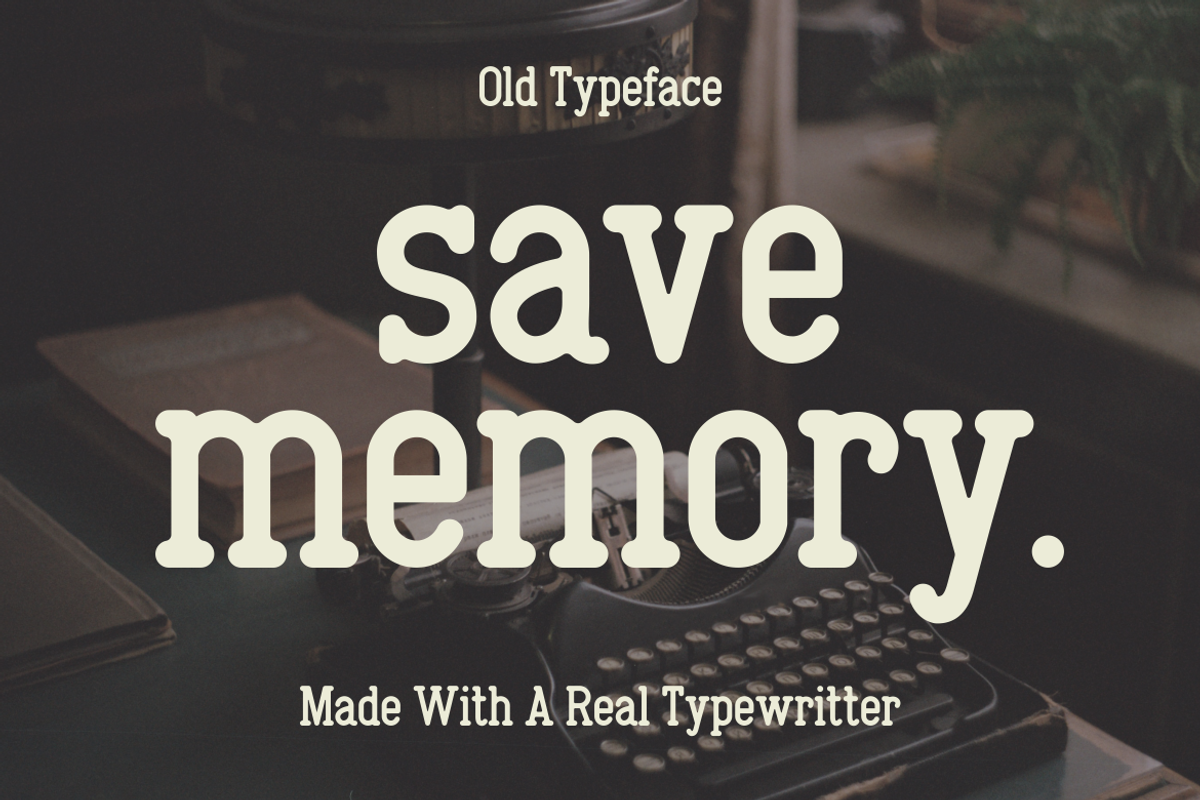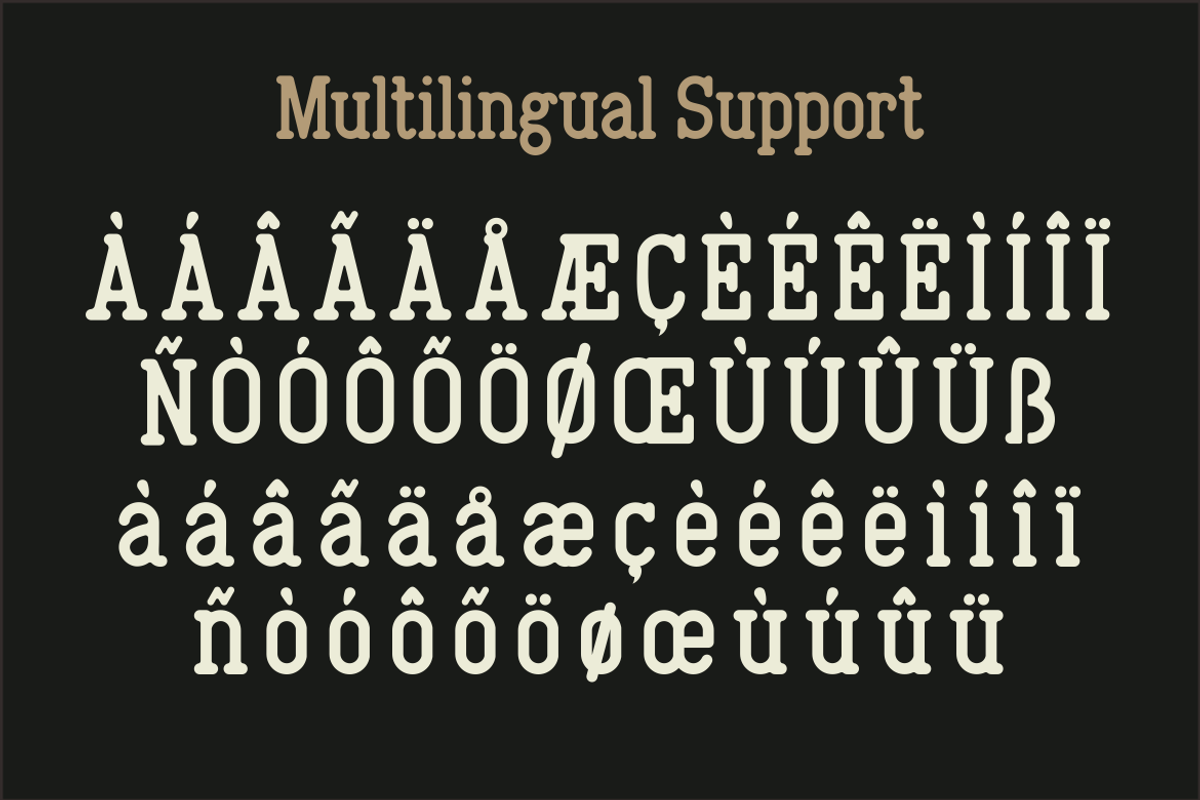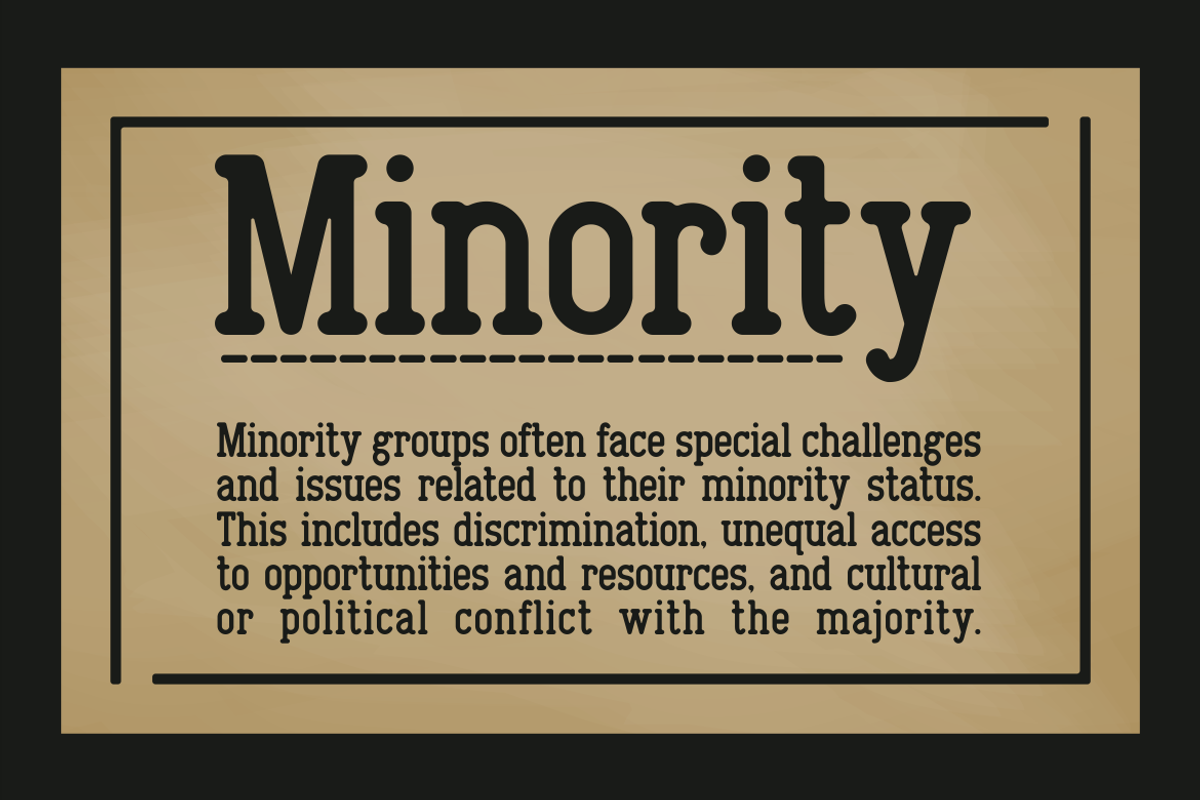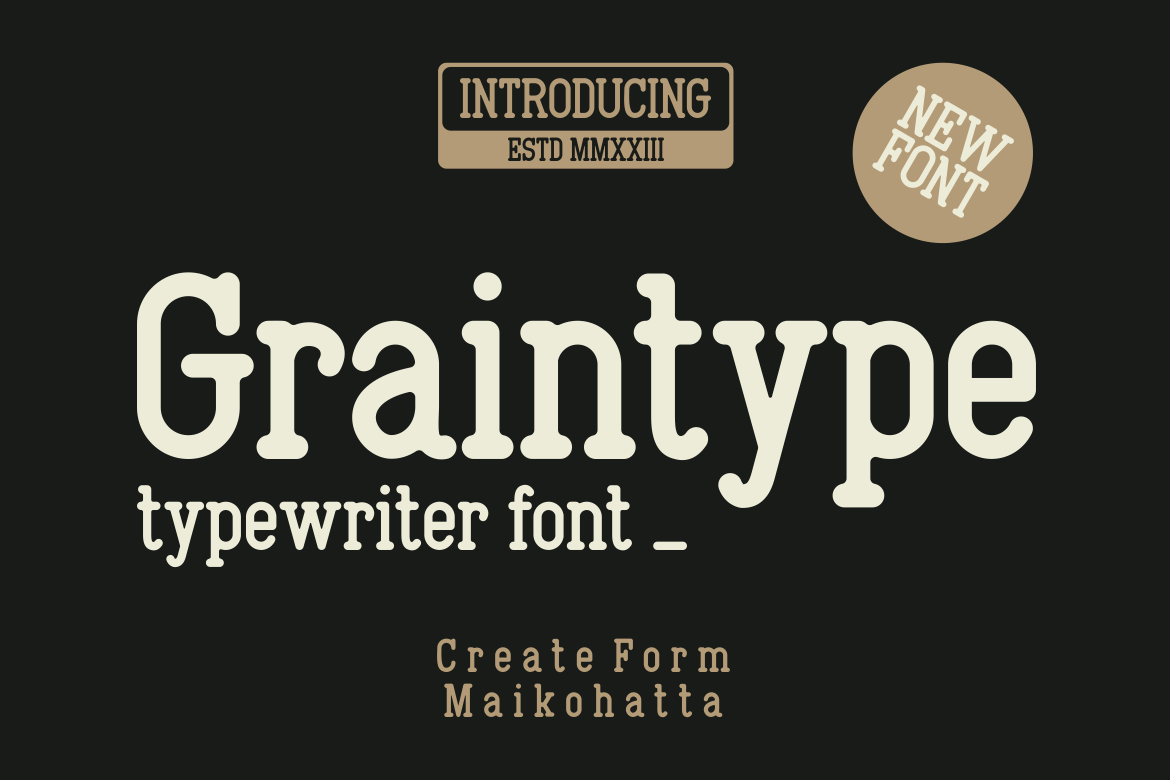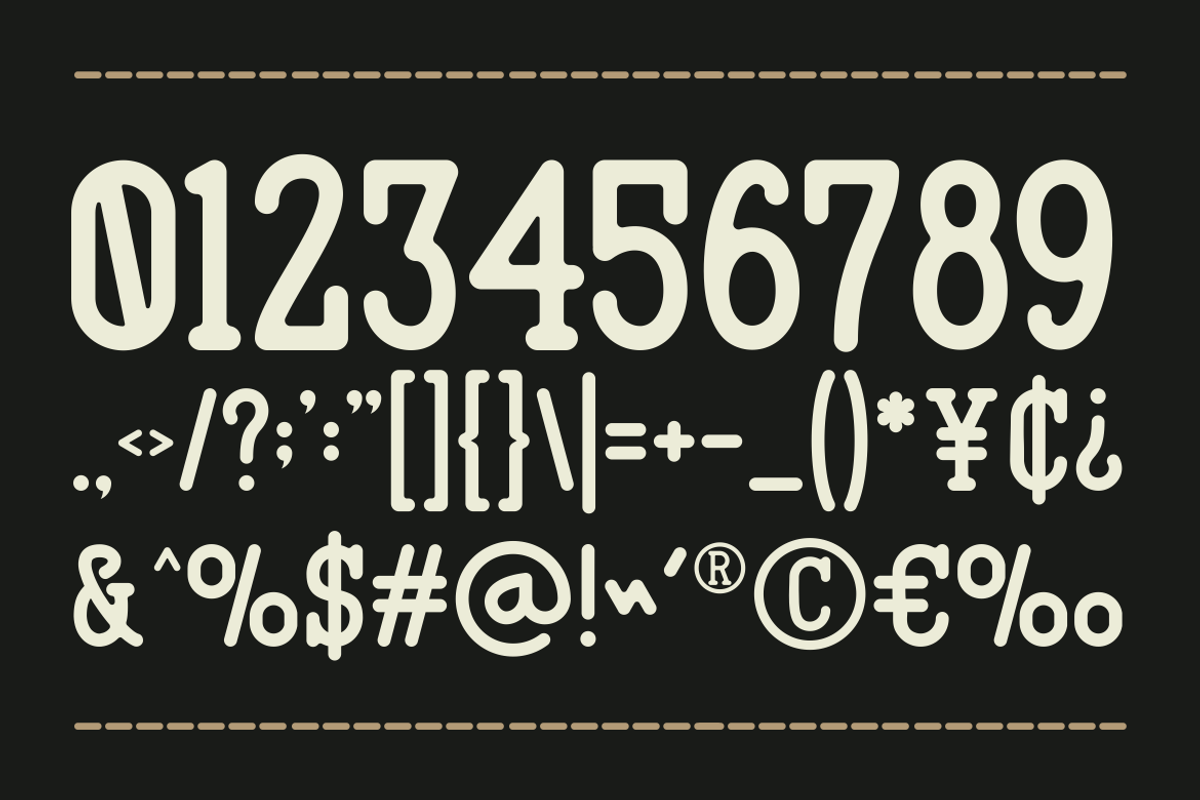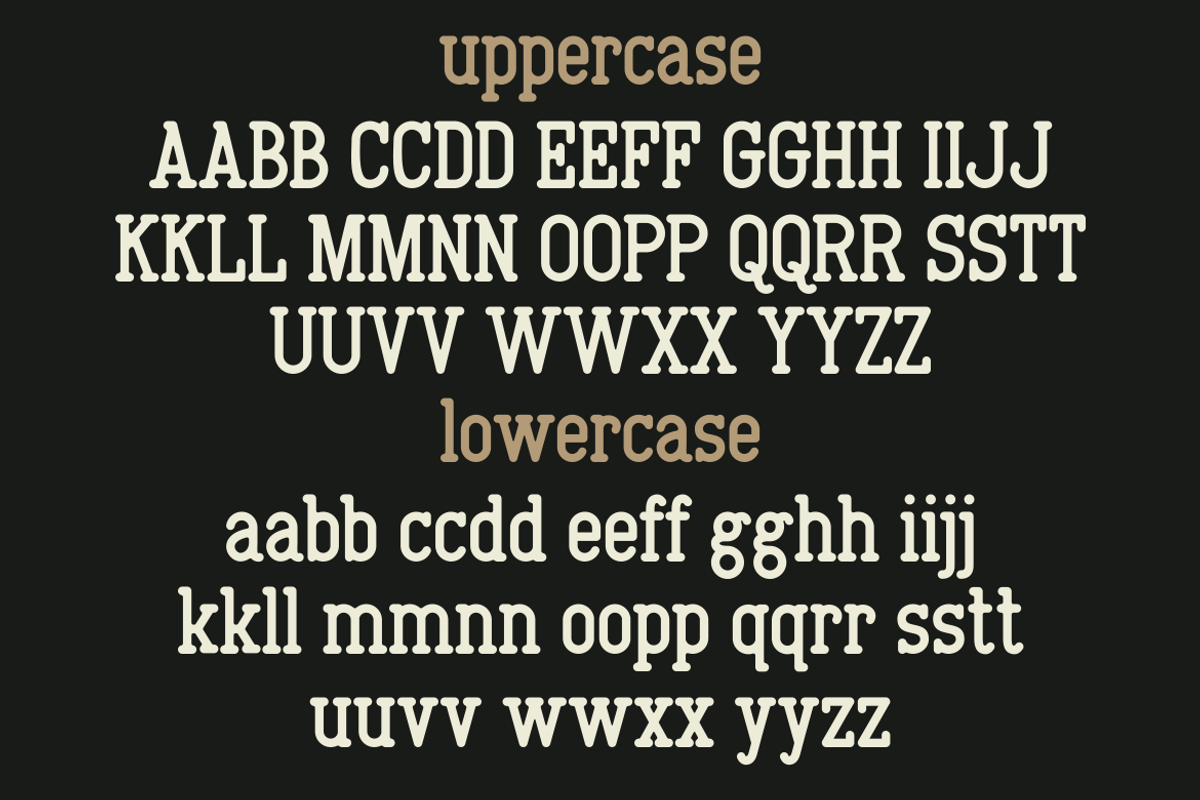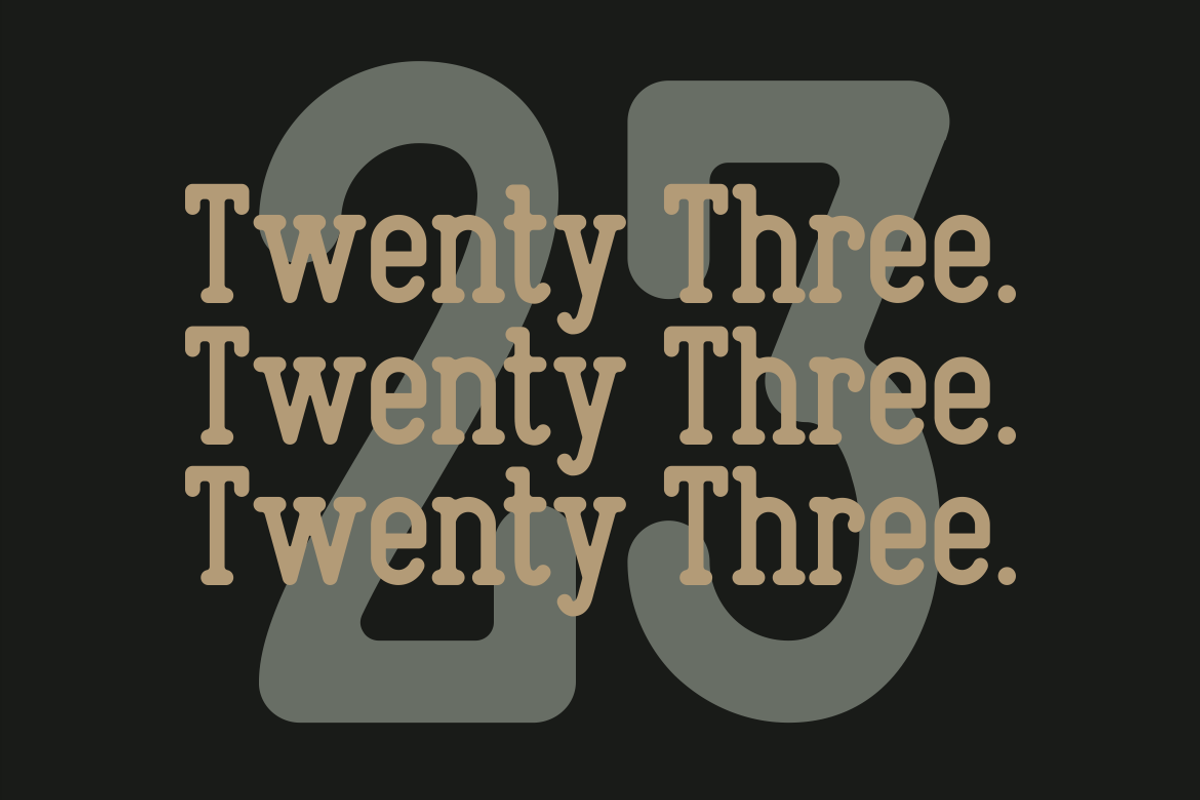
Graintype - Typewritter Font
Graintype is a vintage-inspired typewriter font that brings back the nostalgic charm of old typing machines. With its rounded serifs, monospaced feel, and subtle imperfections, this font is perfect for retro-themed projects, editorial designs, book covers, stationery, and branding that seeks an authentic analog touch.
Its bold yet clean letterforms make it versatile for both headlines and body text, while maintaining a classic, timeless personality. Whether you’re working on vintage posters, typewriter-style quotes, or creative branding, Graintype delivers a unique blend of retro warmth and readability.